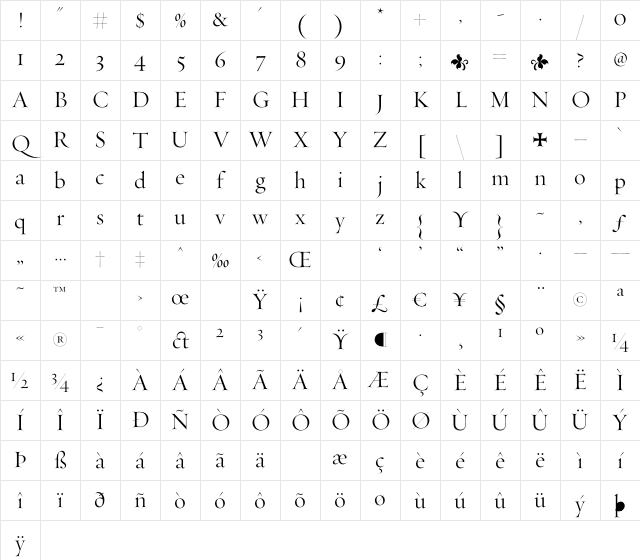
Complete Requiem Fine-HTF-Roman glyph index. Displaying only characters natively supported by Requiem Fine-HTF-Roman font.
Requiem is a composed and adaptable typeface that performs quietly and consistently across a wide range of design contexts.